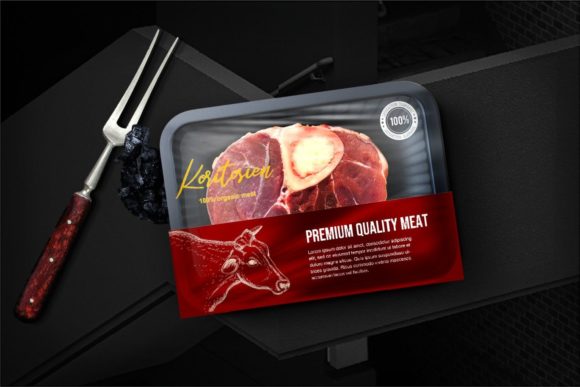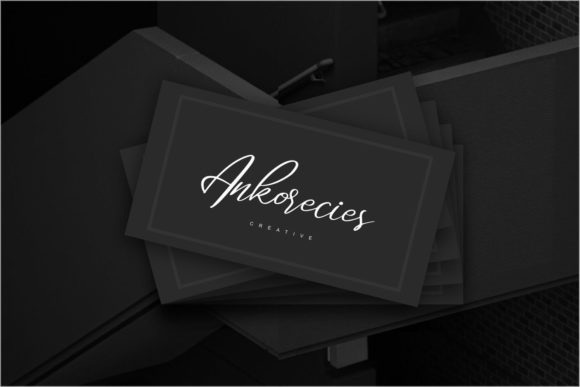
Thesorined Font
db-ku.com - Script & Handwritten -- This font feels equally charming and elegant. It looks stunning on wedding invitations, thank you cards, quotes, greeting cards, logos, business cards and every other design which needs a handwritten touch.